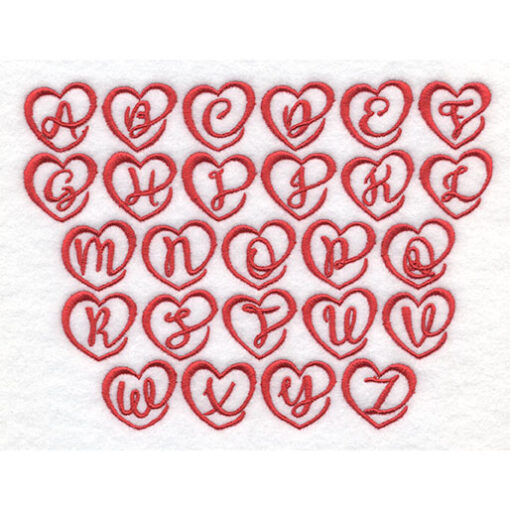
Resizable, stylized, decorative monogram font in native BX format. Includes uppercase letters.This is a manually digitized object-based BX keyboard alphabet file and requires Embrilliance Essentials. Use appropriate underlay and compensation for your project.